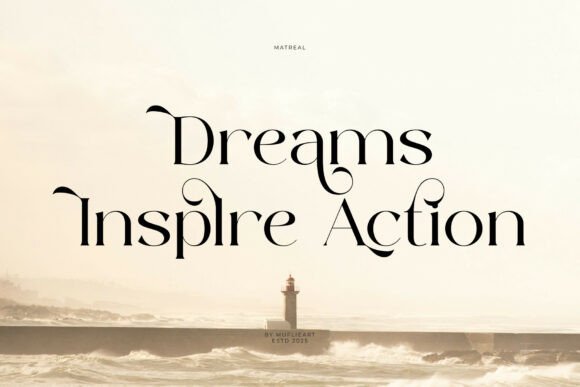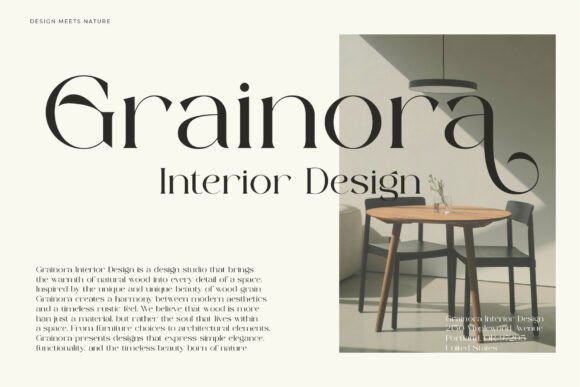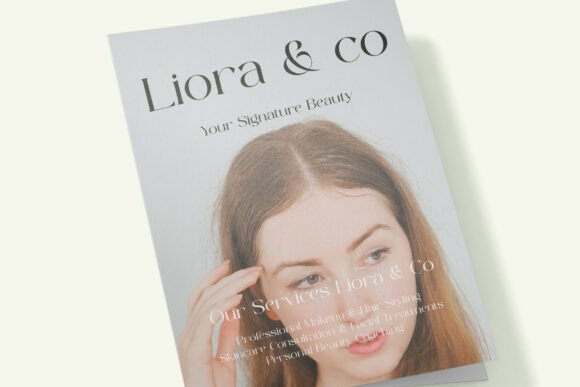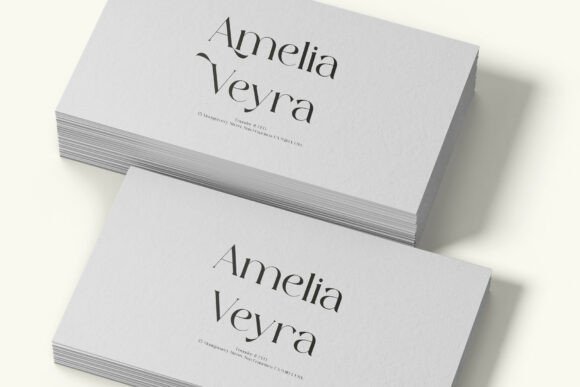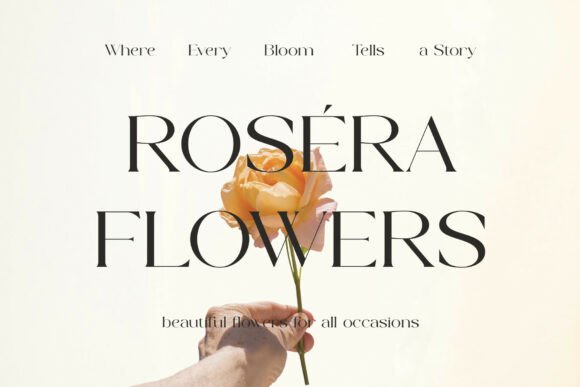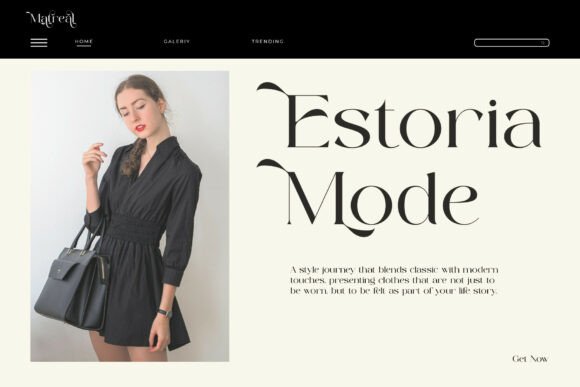
Introduction to Matreal Font
As you sit at your desk, surrounded by scribbled notes, design books, and half-finished projects, a spark of inspiration strikes. You envision a typography that exudes elegance and sophistication, one that captures the essence of luxury and refinement. That’s when you stumble upon the Matreal Font – a masterpiece of modern serif design that elevates your creative project to new heights.
With its sweeping calligraphic terminals and winding swash loops, the Matreal Font brings a unique, flowing poetry to standard text. Whether you’re designing high-end wedding invitations or artisanal fragrance packaging, this font is the perfect design resource to evoke the delicate charm of upscale salons and couture houses. Its versatility, combined with the option for decorative alternate characters, makes it an invaluable asset for any designer looking to add a touch of high-quality luxury to their work.
Key Features of Matreal Font
- Unique characteristics include subtle texture and elegant feel, making it perfect for various design applications
Honest Review: Matreal Font
I recently stumbled upon the Matreal Font, and I must say it’s a lovely addition to my design resource library. This font is perfect for any creative project that requires a modern touch. Its clean lines and elegant curves make it a great choice for titles, headings, and even body text.
One of the standout features of the Matreal Font is its transparent background, making it easy to use with any background image or color. This feature alone makes it a valuable addition to any designer’s toolkit. ✨
- High-quality design that’s perfect for modern creative projects
- Only a limited number of weights and styles available
- Not suitable for projects that require a bold, attention-grabbing font
Overall, I’m impressed with the Matreal Font. It’s a solid choice for designers who need a high-quality, modern font for their creative projects. While it has its limitations, the free download and transparent background make it a valuable resource for any design library. ⚠️
Tips for Getting the Most Out of Matreal Font
For high-quality results, use Matreal Font with a transparent background to ensure your text stands out. You can also experiment with different font sizes and styles to add visual interest to your design.
Matreal Font is ideal for creative projects that require a unique and eye-catching font. Use it for social media graphics, presentations, or any other design where you want to add a touch of sophistication and elegance.
Alternatives to Matreal Font
Open Sans is a popular, high-quality sans-serif font that is ideal for digital design projects. It’s available for free download and comes with a transparent background, making it perfect for creative projects that require a clean and modern look.
Compared to Matreal Font, Open Sans is more versatile and suitable for a wide range of design applications, including logos, headings, and body text. While Matreal Font has a more unique, handwritten feel, Open Sans is a more classic choice that works well in various design contexts.
Lato is a modern sans-serif font that is perfect for creative projects that require a sophisticated and elegant look. It’s available for free download and comes with a transparent background, making it ideal for design resources that need a high-quality font.
Compared to Matreal Font, Lato is more refined and polished, making it suitable for corporate and branding projects. While Matreal Font has a more playful, handwritten feel, Lato is a more formal choice that works well in professional design contexts.